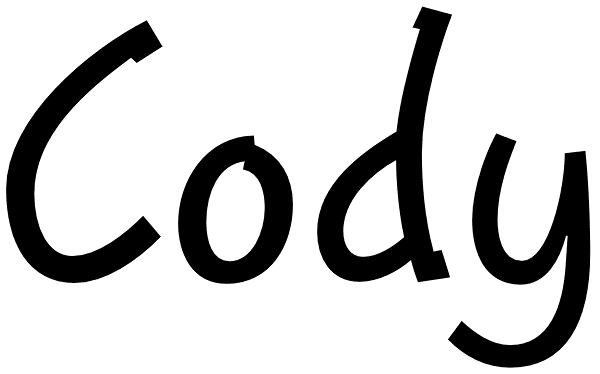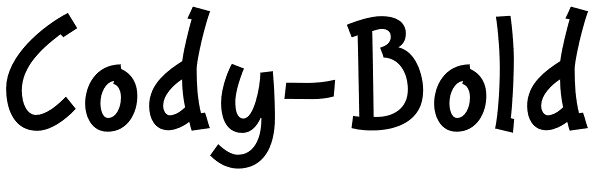
Cody
Friendly and fun with hints of art nouveau and comic book lettering, Cody is based on and inspired by letterforms appearing in works by international artist Cody Chancellor. The letters playfully lean both left and right creating a unique, artful...
Cody
Cody-Bold